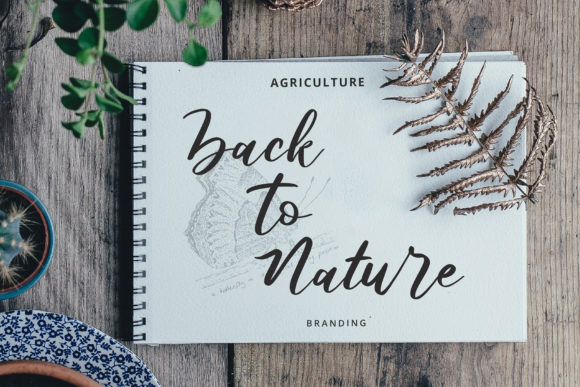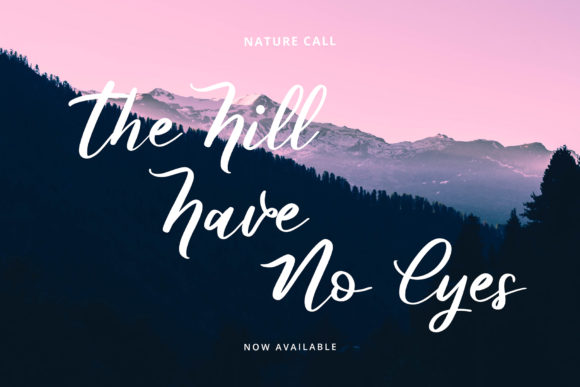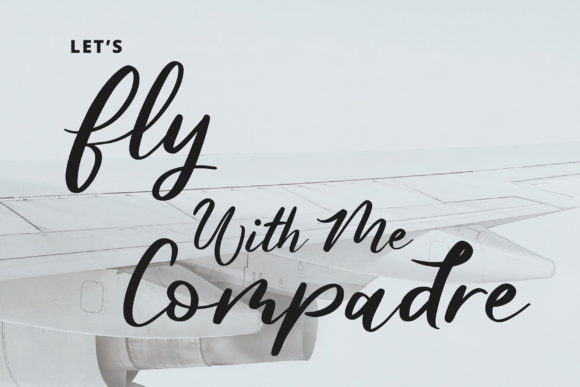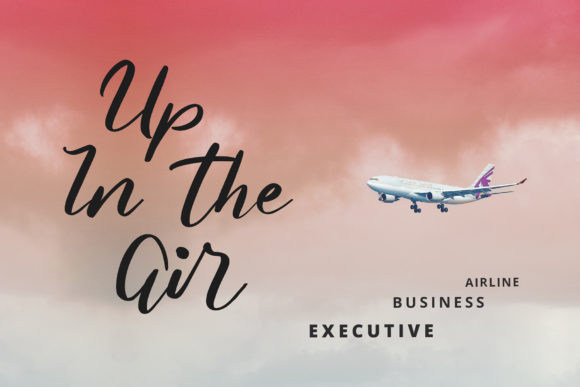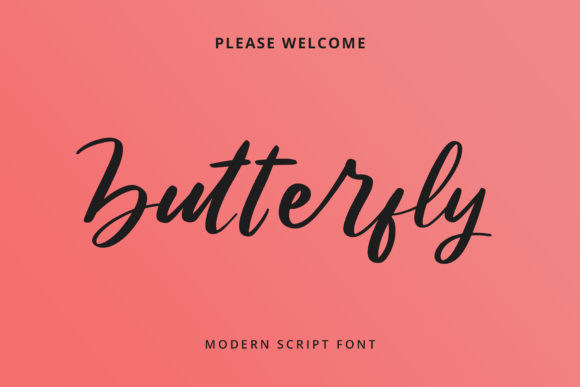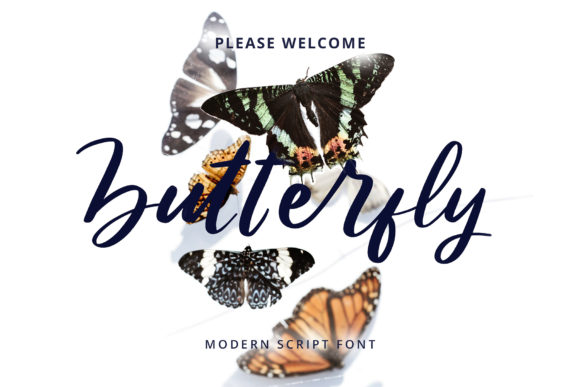
The Magical World of Butterfly Font: A Designer’s Delight
I’ll never forget the time I was working on a wedding invitation project, and my client asked me to create a custom design that exuded elegance and sophistication. I spent hours scouring the internet for the perfect font, but nothing seemed quite right. That was until I stumbled upon Butterfly Font. This stunning script font has since become a staple in my design toolkit, and I’m excited to share its charm with you! 😊
Butterfly Font is a true gem, and here’s what makes it special:
- ✨ Elegant and charming, perfect for high-end designs
- ✅ Varying baseline and smooth lines create a beautiful, fluid look
- ✅ Gorgeous glyphs and stunning alternates add a touch of sophistication
- ✅ Perfect for branding, headings, wedding designs, invitations, signatures, logos, labels, and more!
While Butterfly Font is a stunning addition to any design project, it’s not without its quirks. For example:
- ⚠️ Some users may find the font a bit finicky when it comes to kerning and spacing
- 🤔 The font’s elegance can be overwhelming if not paired with a simple background or complementary font
Butterfly Font was created by a talented designer who wanted to capture the essence of classic calligraphy in a modern, digital format. Inspired by the delicate beauty of butterflies, the designer crafted a font that would evoke feelings of elegance and sophistication. With its varying baseline, smooth lines, and gorgeous glyphs, Butterfly Font is a true masterpiece.
| Author | Giant Design |
| Is Butterfly Font suitable for body text? | While Butterfly Font is stunning, it’s best suited for headings and titles. Its elegance and sophistication make it perfect for adding a touch of flair to your design, but it may not be the best choice for body text. |